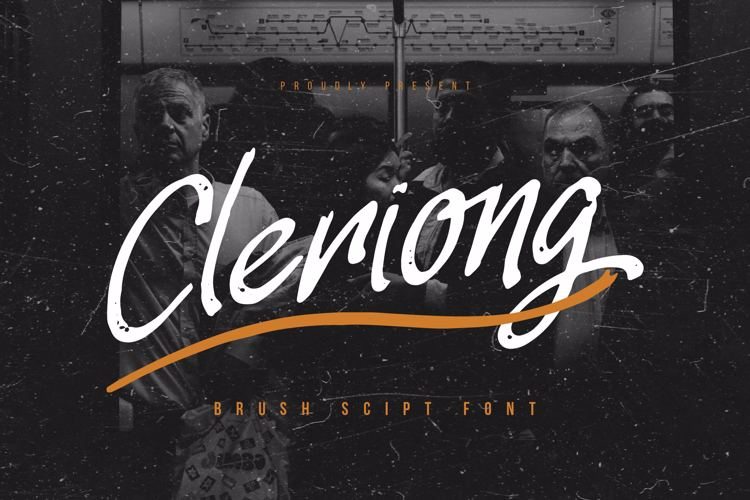
Cleriong Font
About Cleriong Font
Cleriong | Brush Script Font is suitable for any projects such as: logos, branding projects, homeware designs, product packaging, mugs, quotes, posters, shopping bags, t-shirts, book covers, name card, invitation cards, greeting cards, label, photography, watermark, special events, and all your other lovely projects that need a Brush script taste.